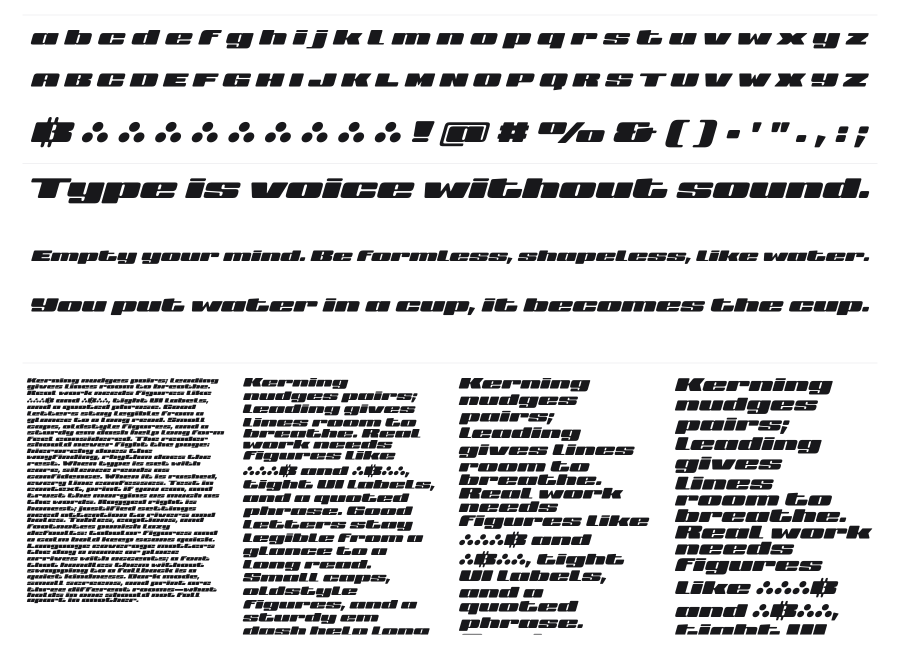
Big Slant
Big Slant is an ultra-wide, ultra-black sans-serif built around a decisive 16-degree slant that turns every word into a streak of motion. Ascenders and descenders are kept deliberately short so the horizontal mass dominates, letting even a single word fill a space with raw presence. Designed by deFharo for headlines that need to be felt, not just read.